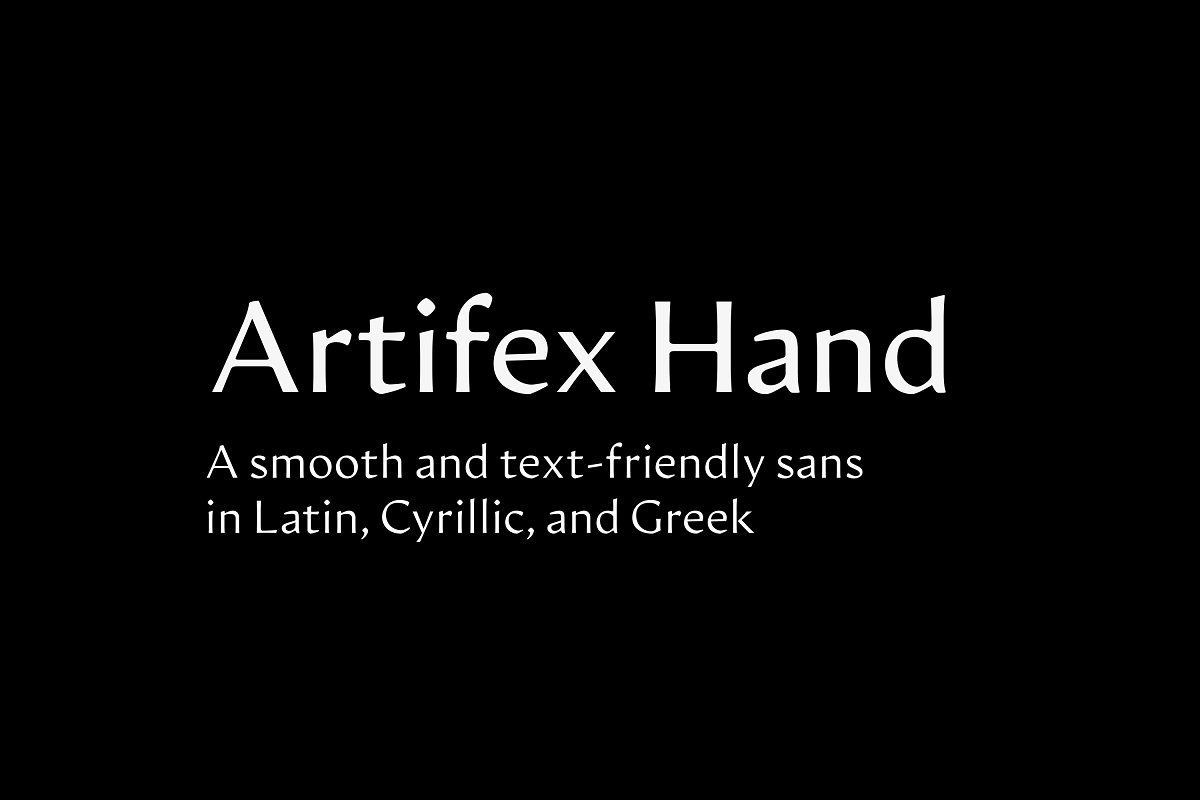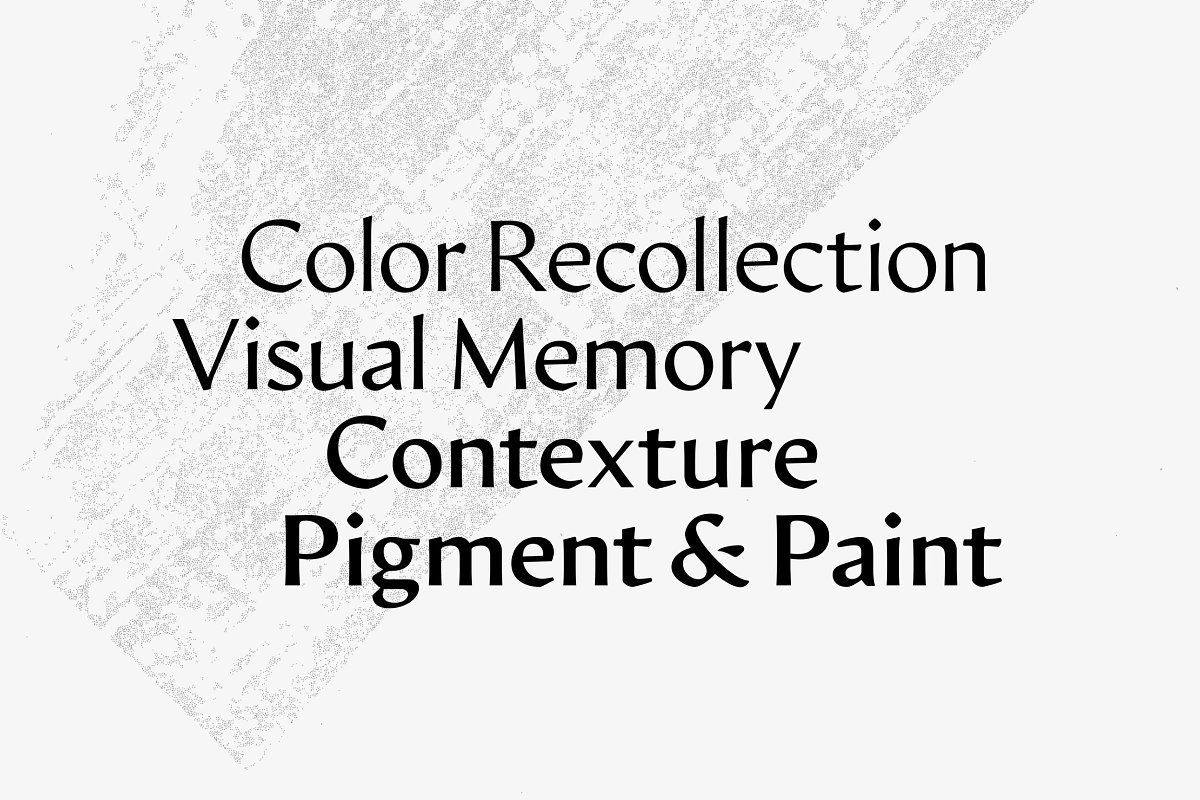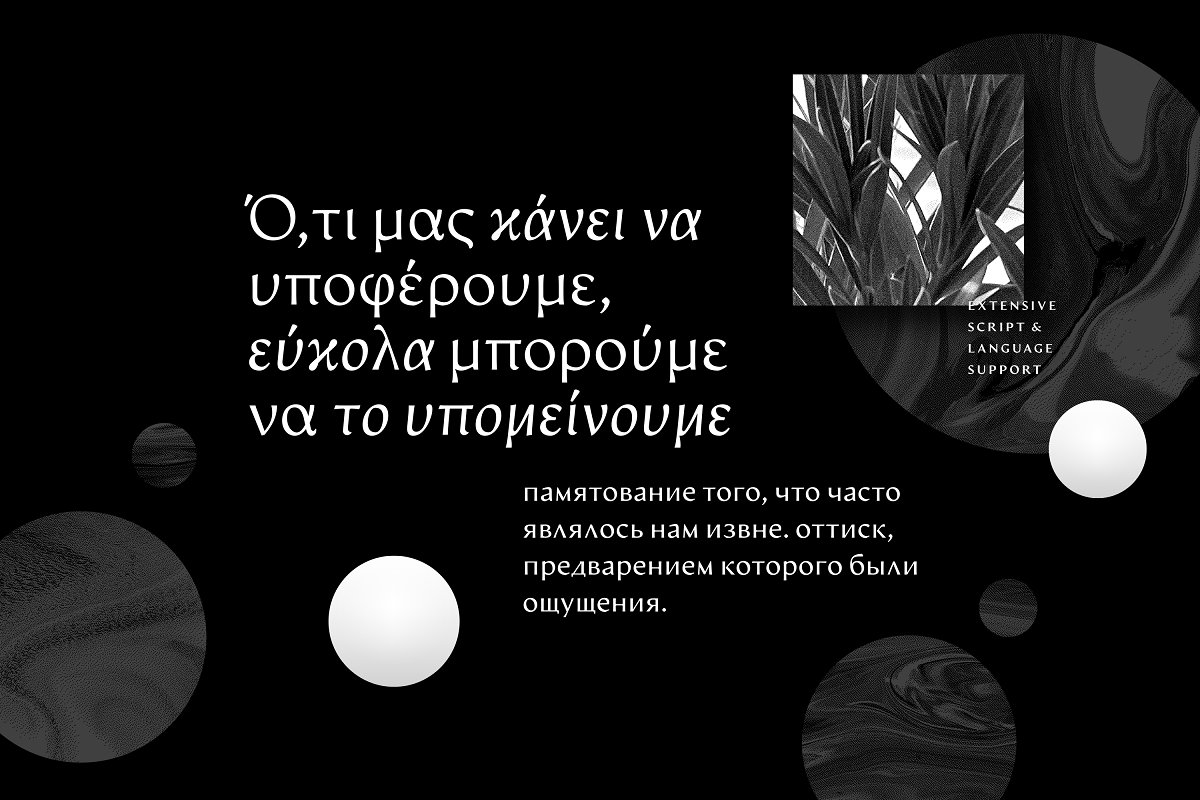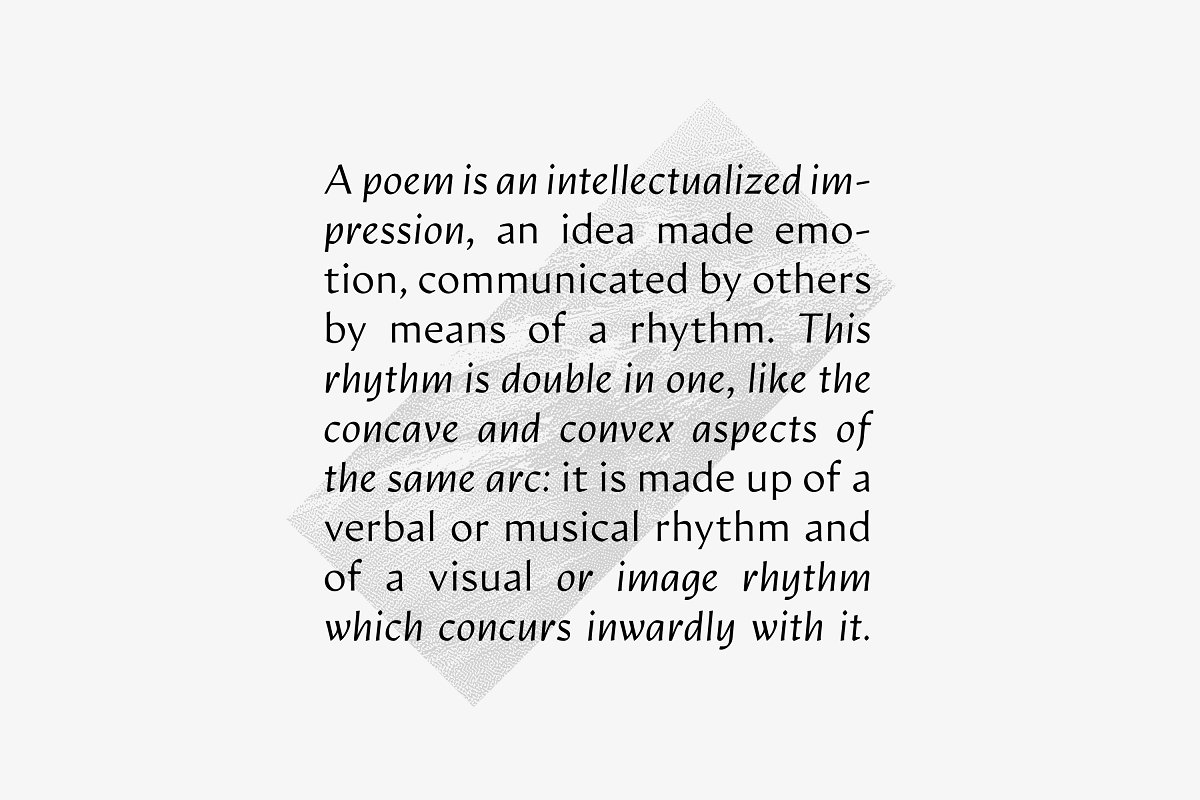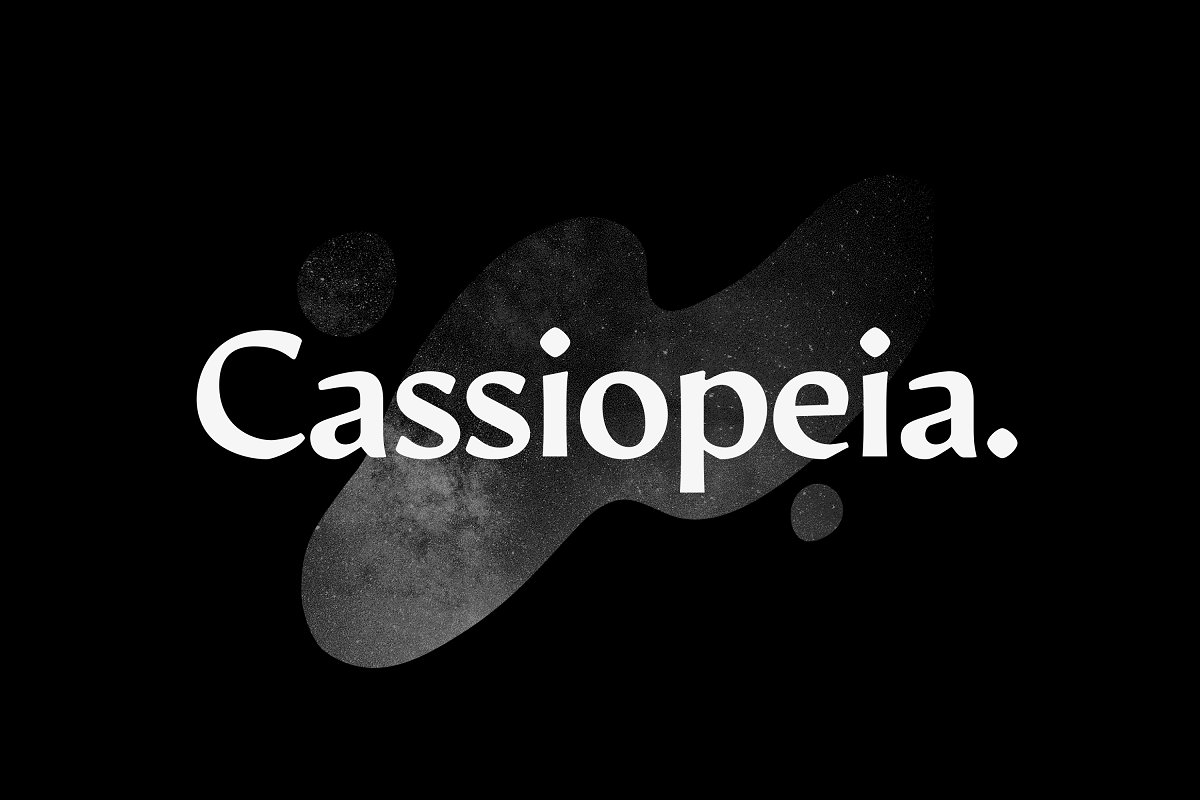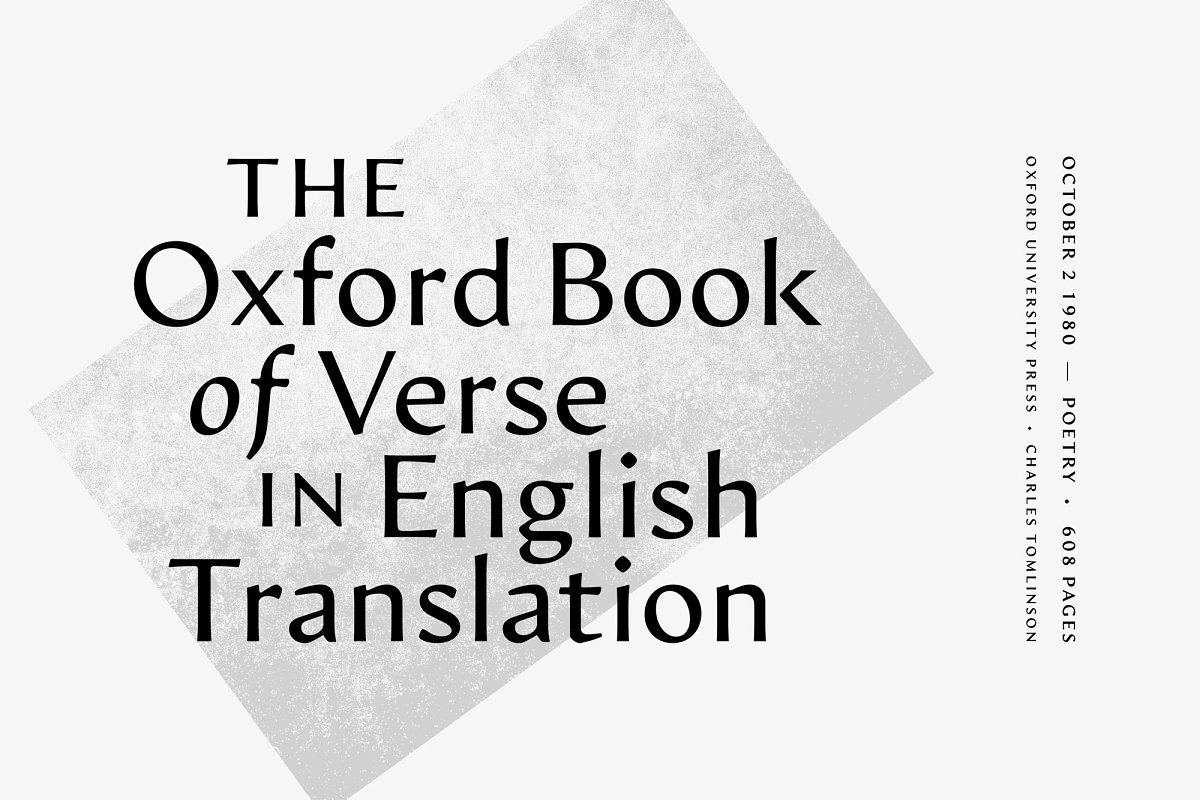
About the Artifex Hand CF sans serif font
Artifex Hand CF is a humanist sans-serif variation on the original Artifex typeface; its serifs replaced with a subtle flare, lending a calligraphic feel and warm tone, Like its sibling, Artifex Hand is designed for flowing, easy-to-read text while doubling as a display font, thanks to its subtle details and moderate contrast, Extensive Latin, Cyrillic, and Greek support lends wide language coverage
Eight weights and true italicsLatin, Cyrillic, and Greek scriptsWide language support, including Russian, Greek, Vietnamese and many moreInternational Phonetic Alphabet glyphs includedLatin-script transliteration for Sanskrit, Arabic ALA-LC/DMG/ISO 233, and PinyinOpenType features (fractions, alternates, ligatures)Long term support, free features, and bug fixesIf you have any questions about licensing, need help with a typeface, or would like to request a new feature, contact me at connary